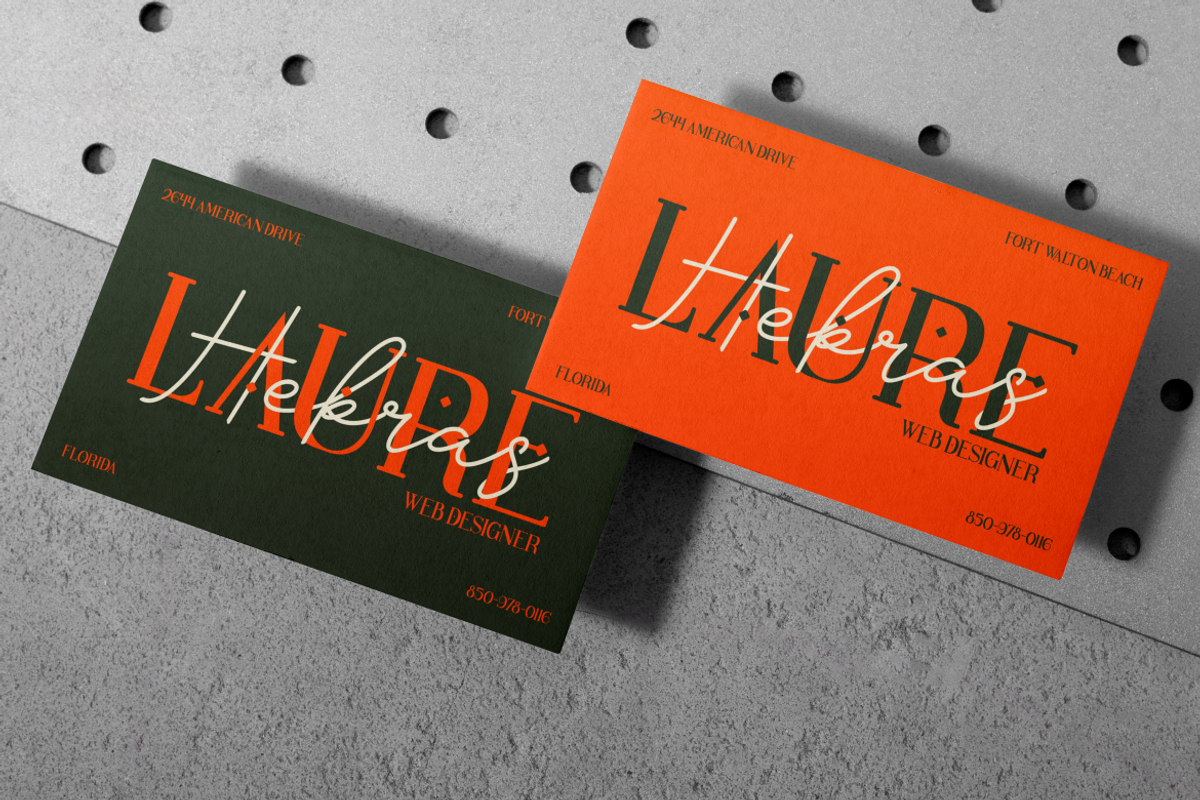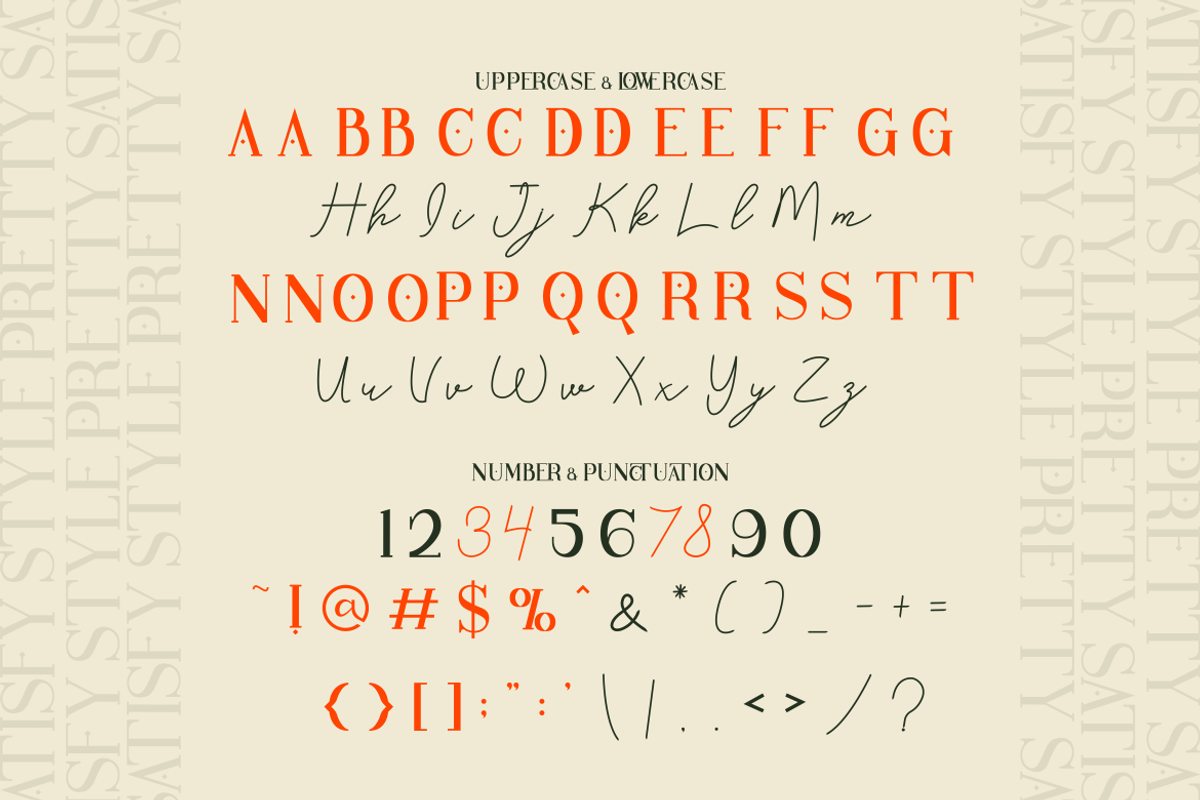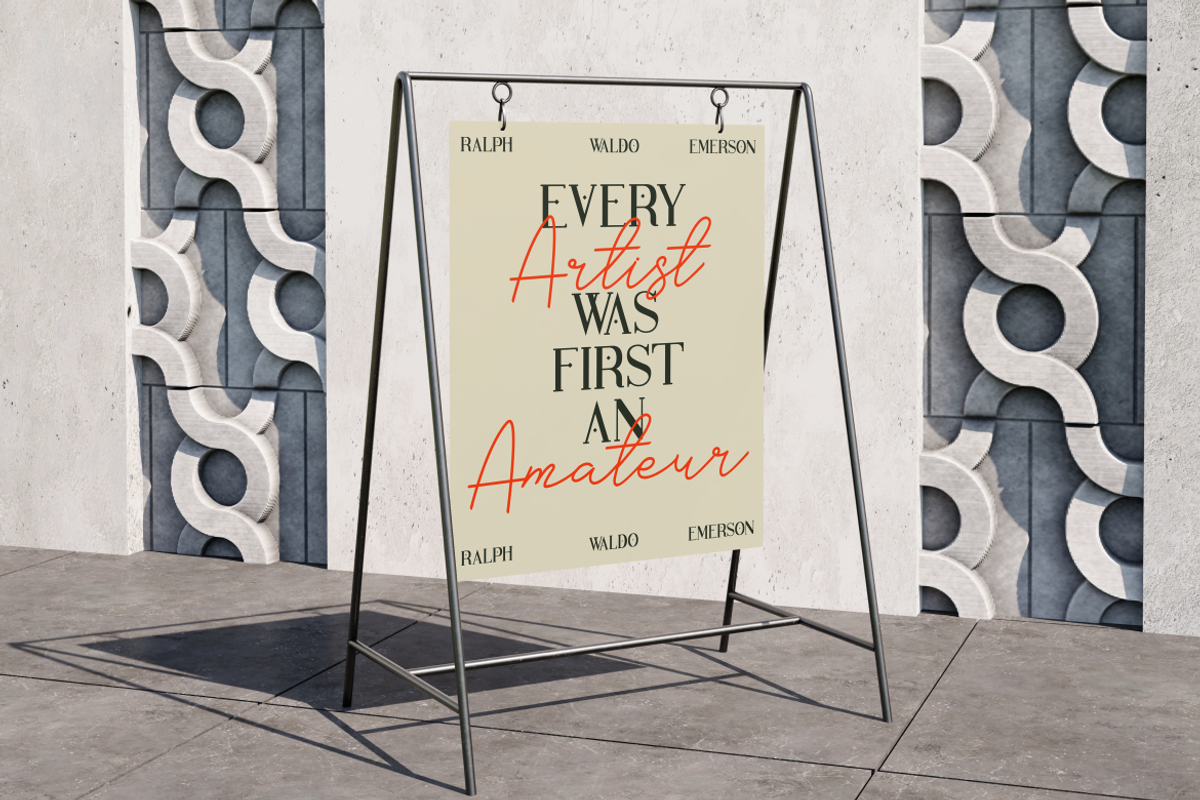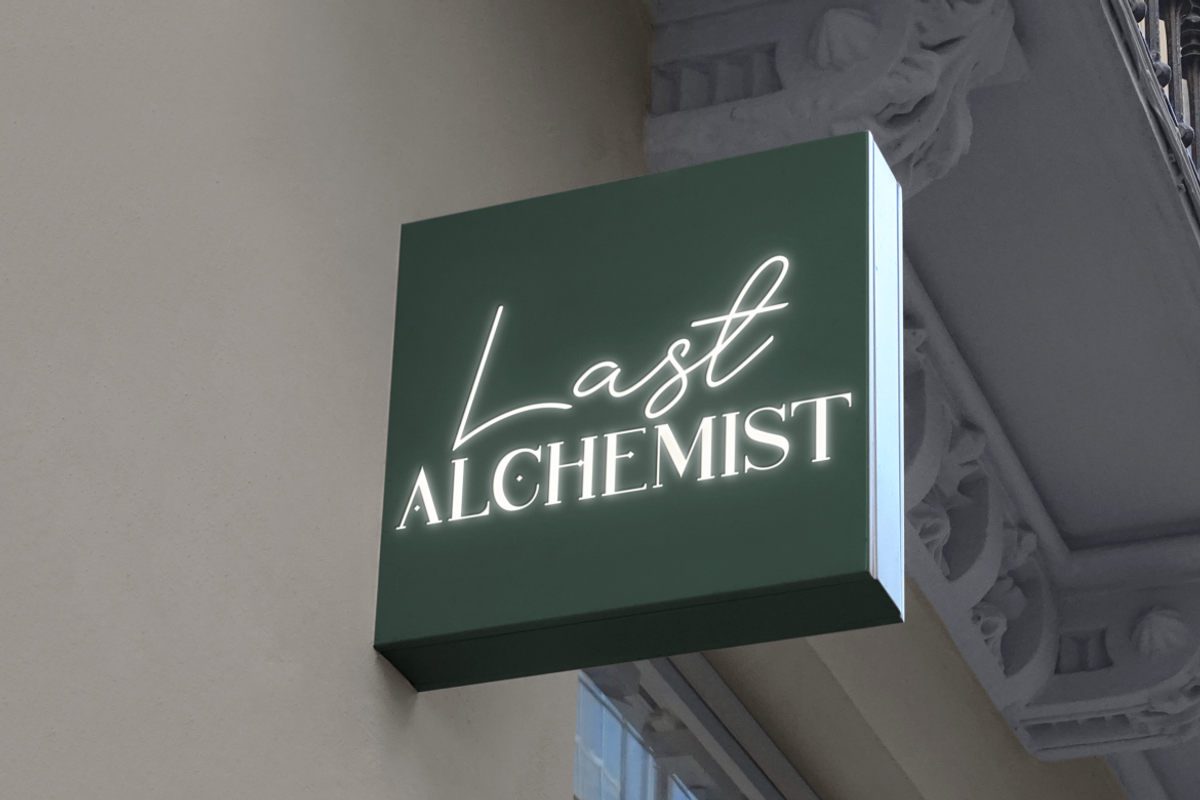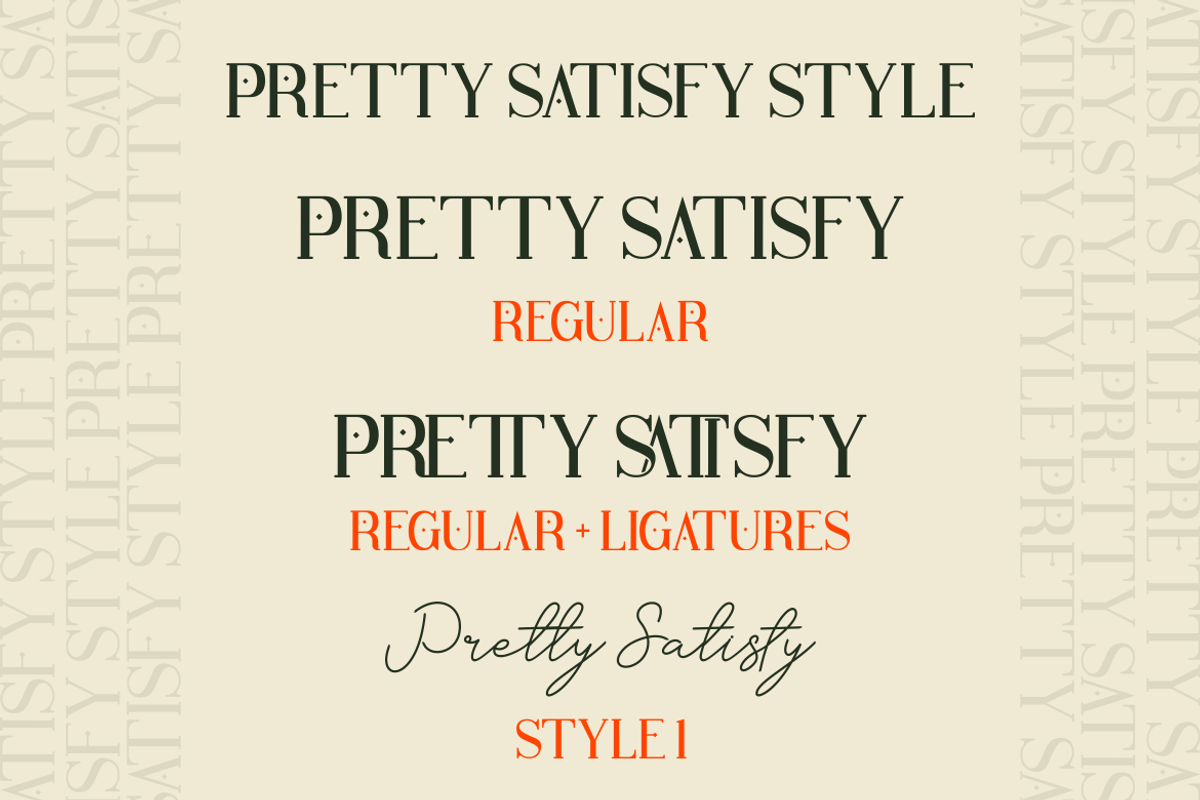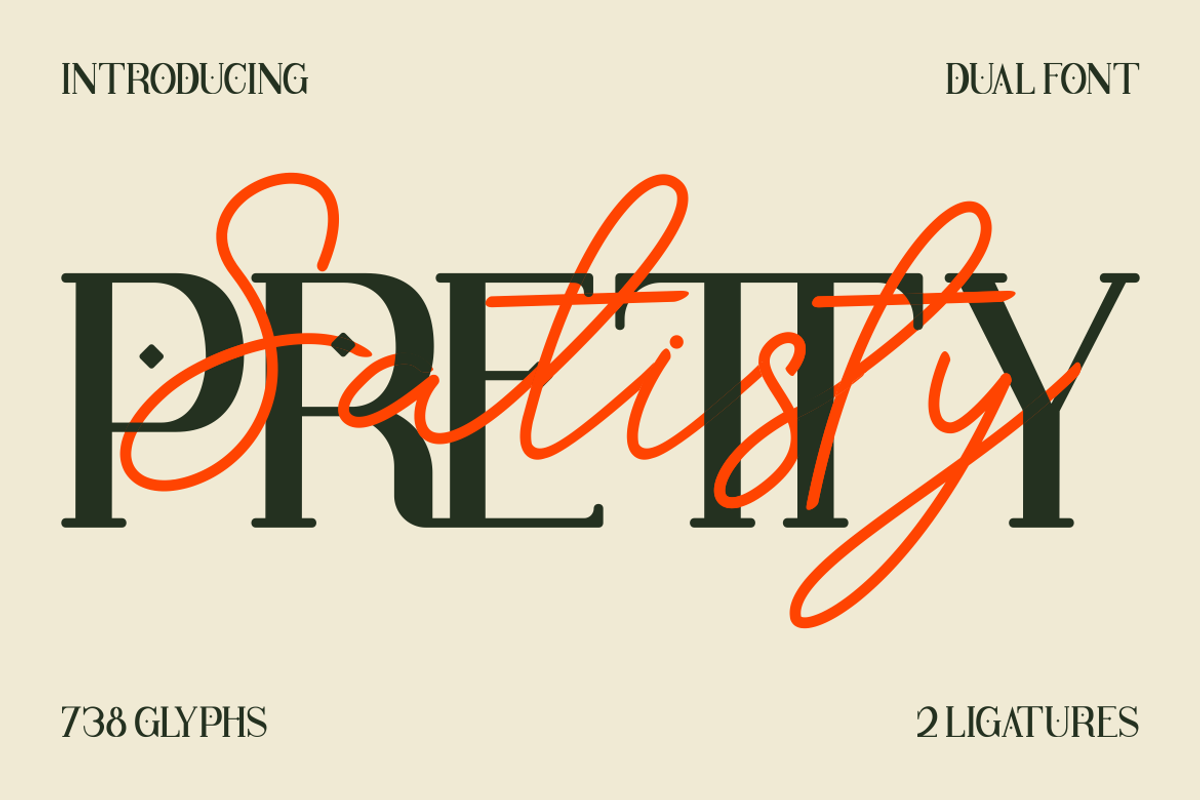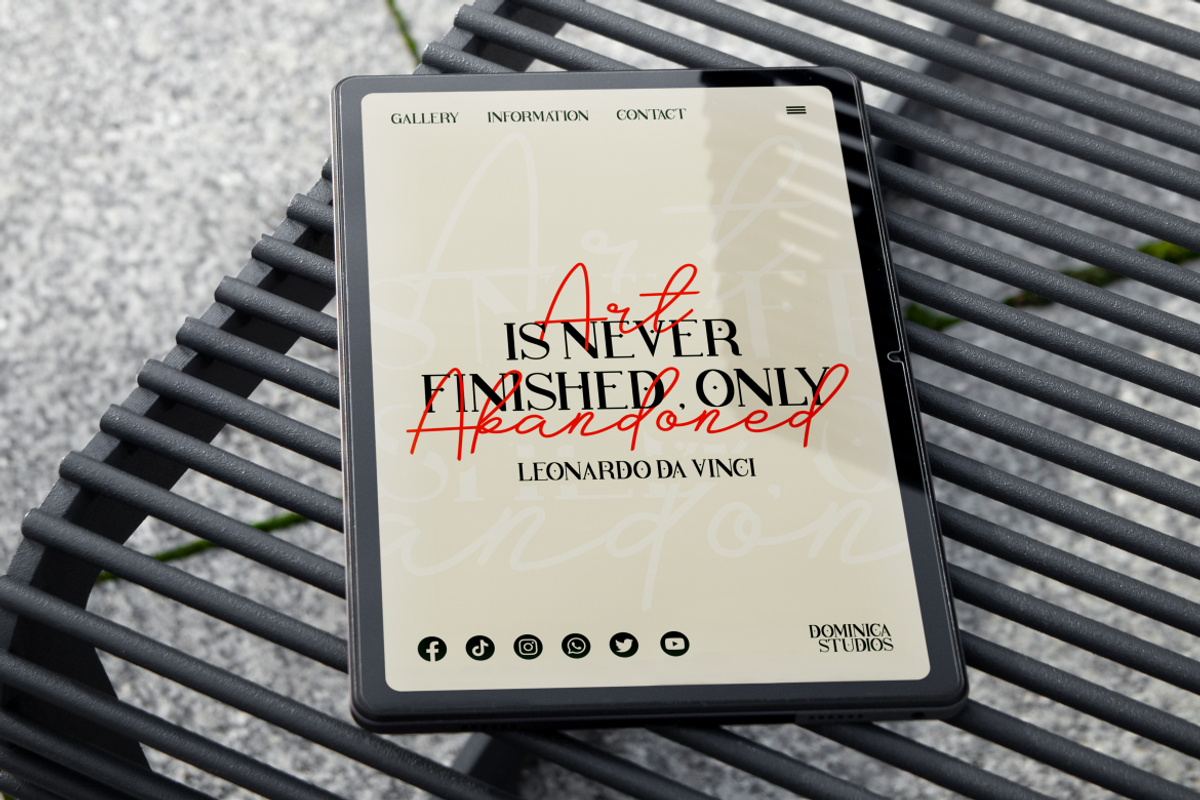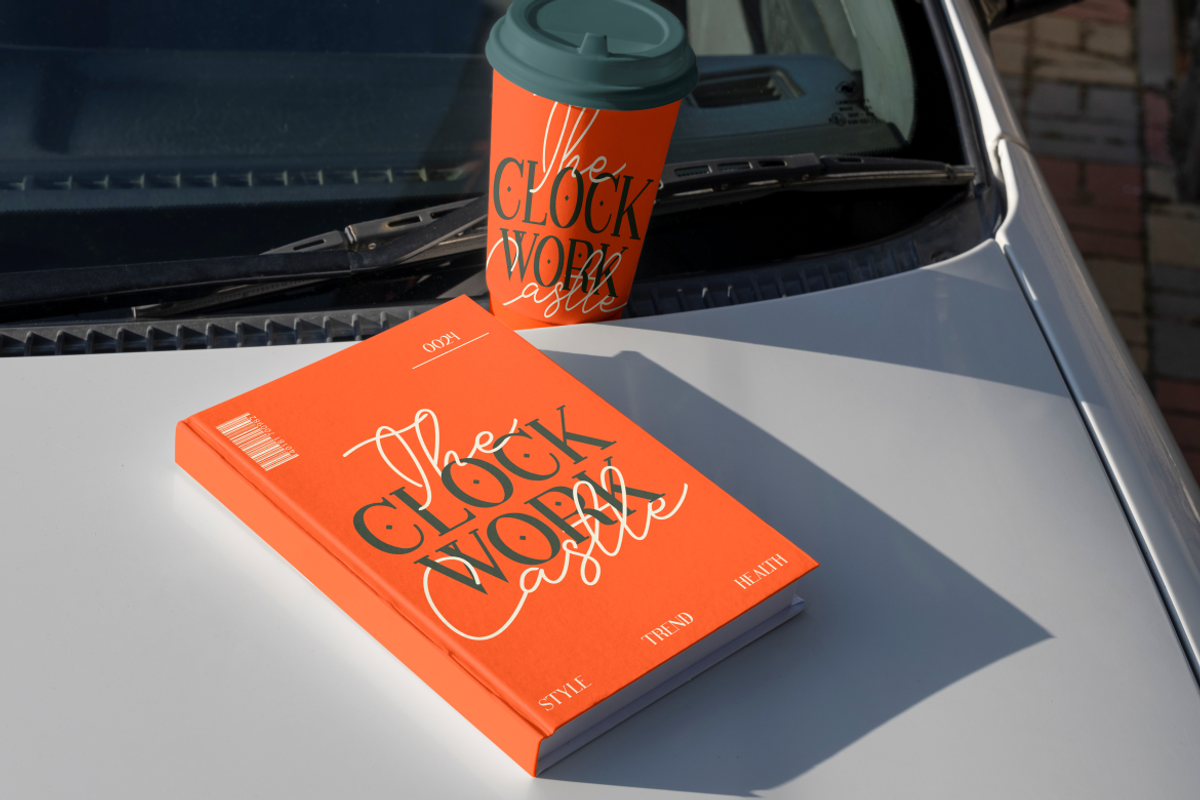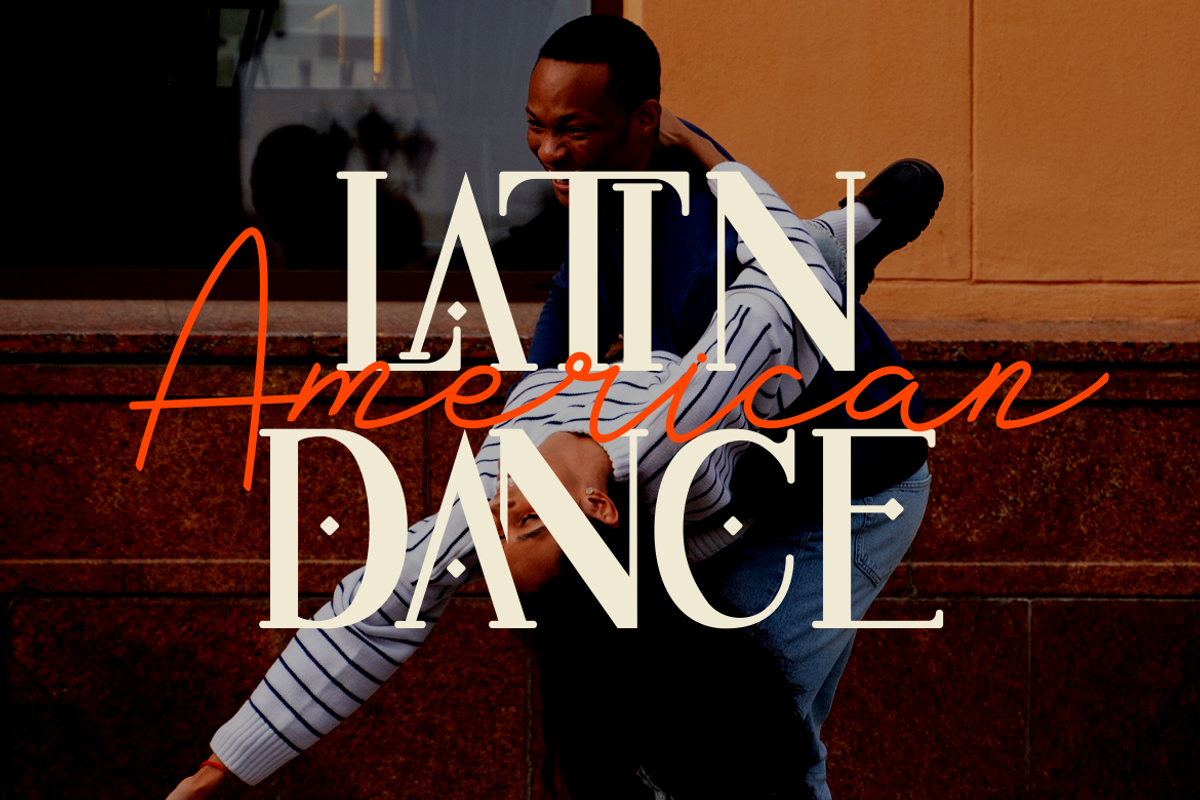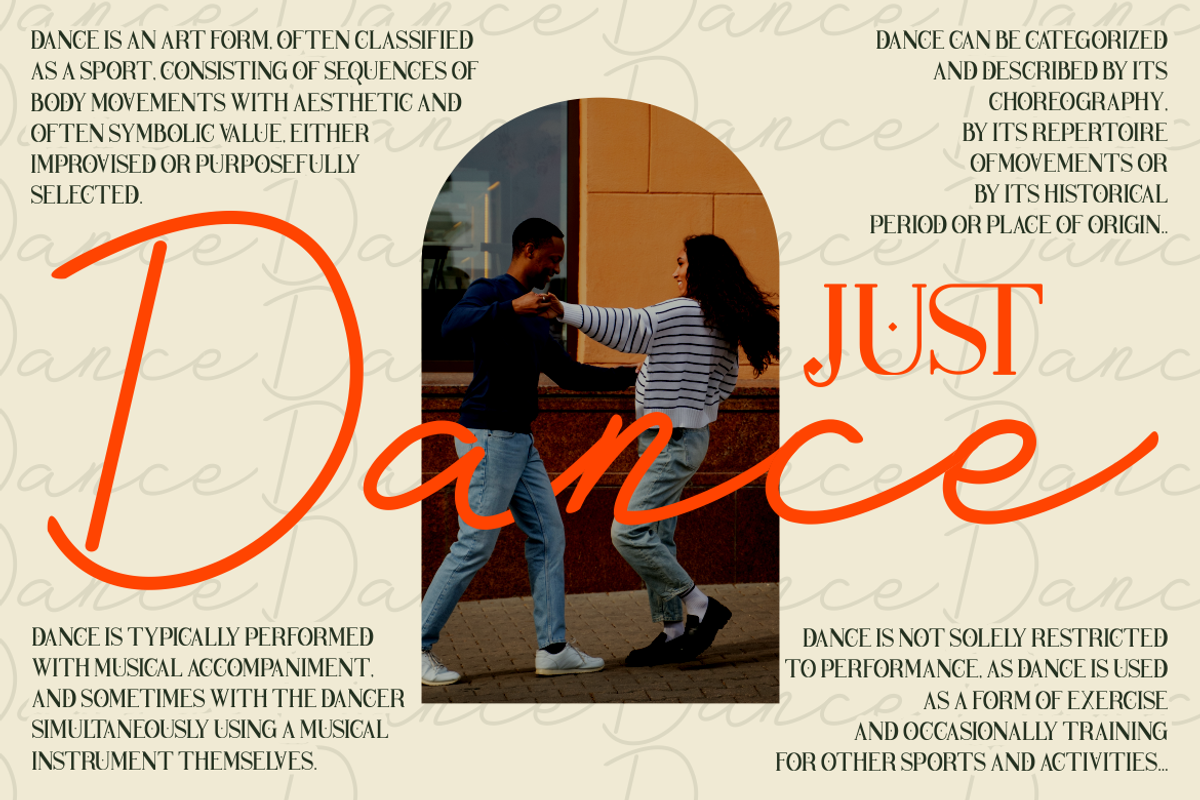
Pretty Satisfy - Luxury Font Duo
Introducing Pretty Satisfy, a luxurious font duo that effortlessly blends the classic sophistication of a bold serif with the graceful flow of a monoline script. This unique combination makes Pretty Satisfy the ideal choice for any project that seeks to embody both elegance and contemporary style. With over 738 glyphs and beautiful ligatures, this typeface offers endless possibilities for creative expression. Whether you’re designing logos, crafting wedding invitations, or adding a touch of class to packaging, Pretty Satisfy provides the versatility and refinement needed to elevate your work. Its contrasting styles ensure a harmonious balance, making your designs stand out with a polished and professional look.
Pretty Satisfy is more than just a font—it’s a statement piece for any branding or design project. The serif style exudes a timeless luxury, perfect for editorial layouts, book covers, and high-end branding, while the delicate script adds a personal, hand-crafted touch to your creations. Use it to create stunning business cards, stylish social media graphics, or elegant event invitations. This font duo is perfect for anyone looking to add a sense of prestige and charm to their designs. Let Pretty Satisfy transform your projects with its sophisticated and graceful appearance, making every word you create feel special and unique.